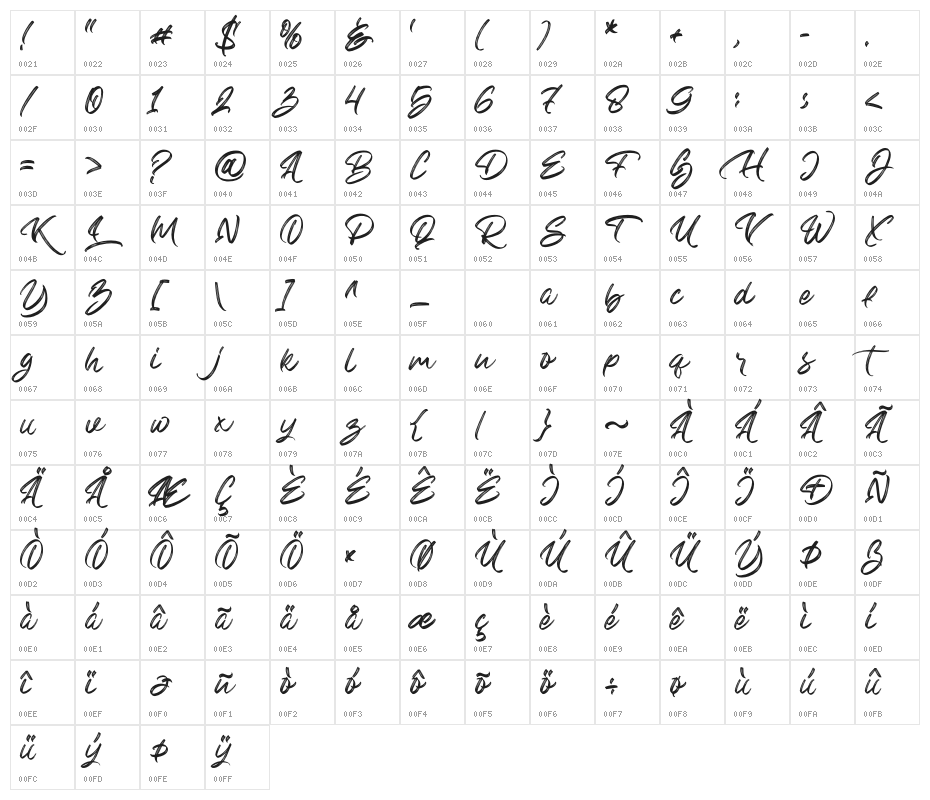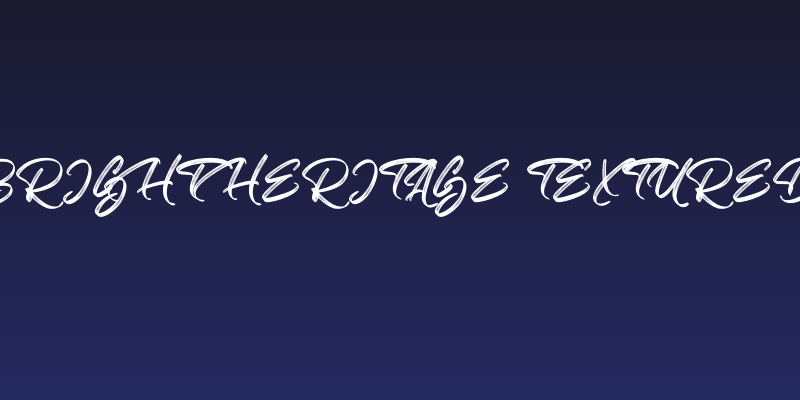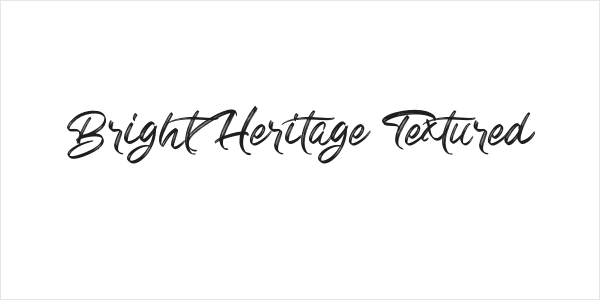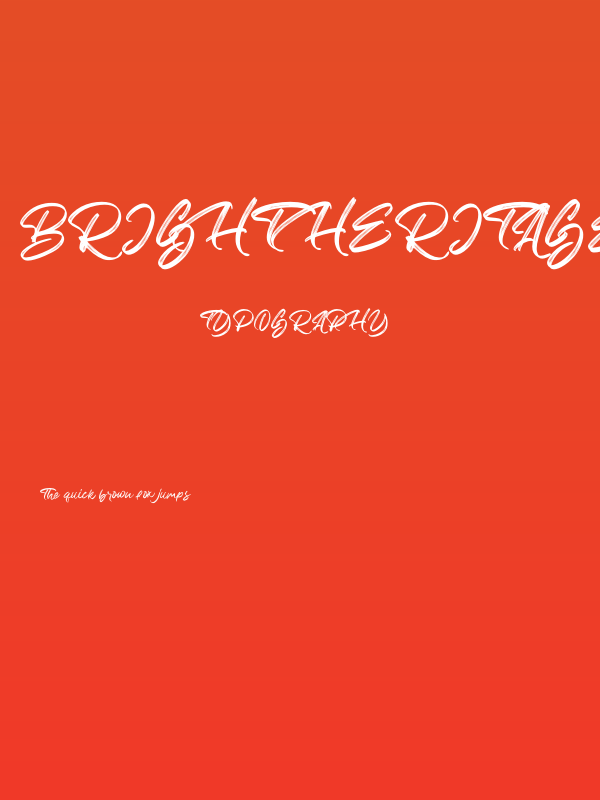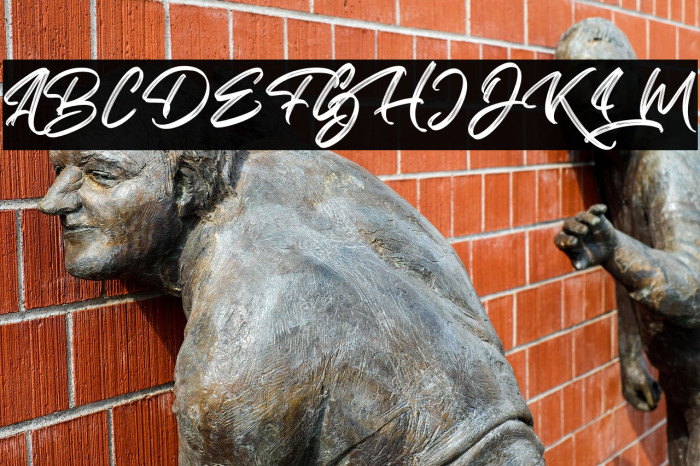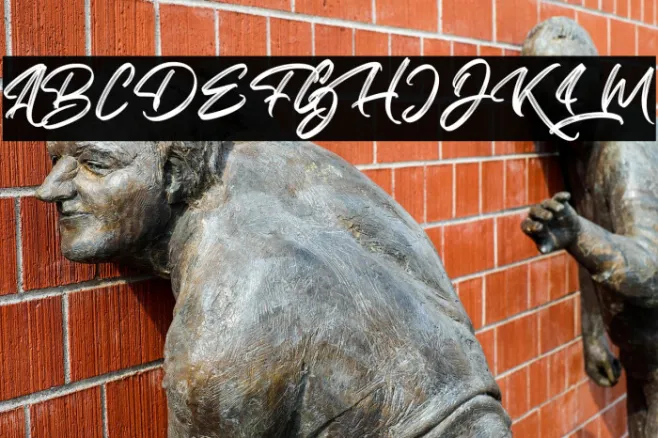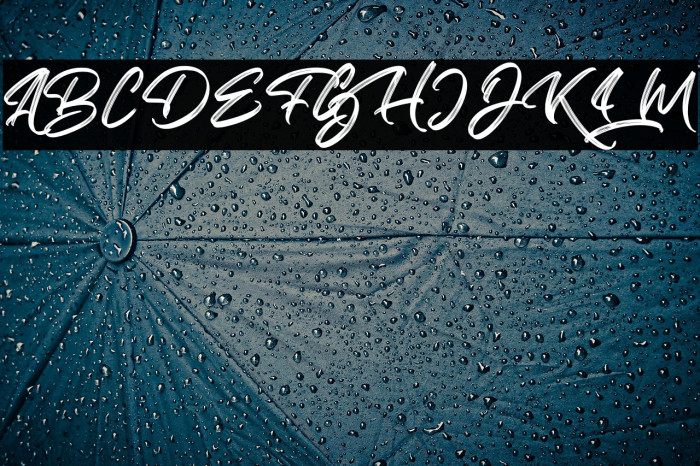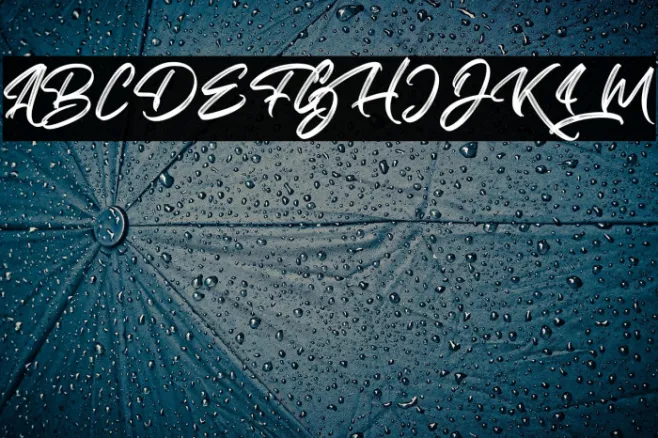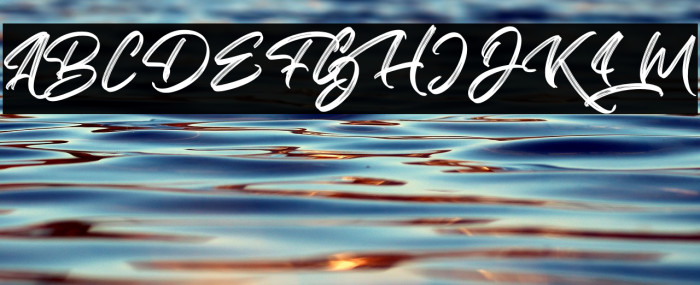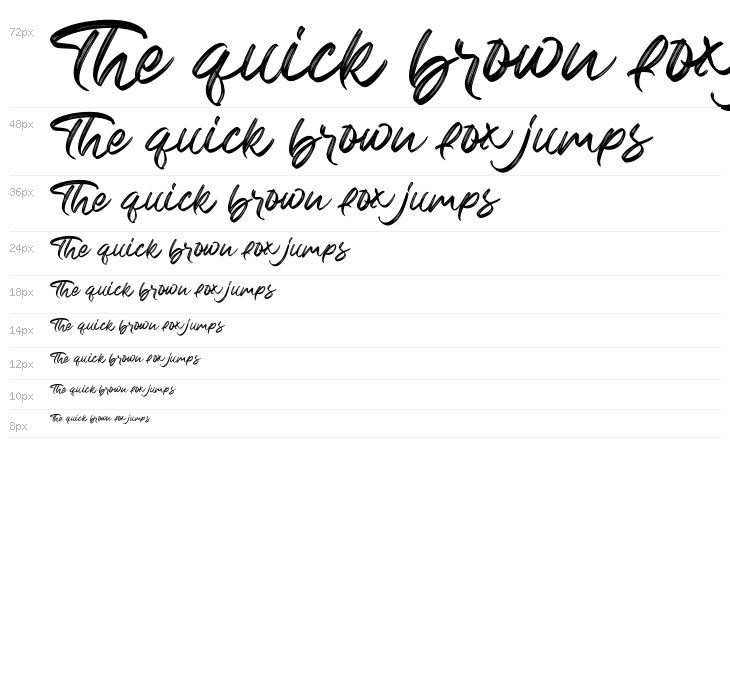
Bright Heritage Textured Font
Bright Heritage Textured Description
This font features a dynamic and expressive script style with a textured appearance that adds a sense of movement and energy. The letters are interconnected with fluid strokes, giving it a handwritten feel. The uppercase and lowercase characters maintain a consistent style, with bold, sweeping lines that vary in thickness, creating a high contrast. The numbers and special characters follow the same aesthetic, ensuring uniformity across all glyphs. This font's textured look makes it stand out, ideal for designs that require a personal touch.
| Proposed Projects | Ideal for branding, invitations, greeting cards, and artistic projects that require a personal, handwritten touch. |